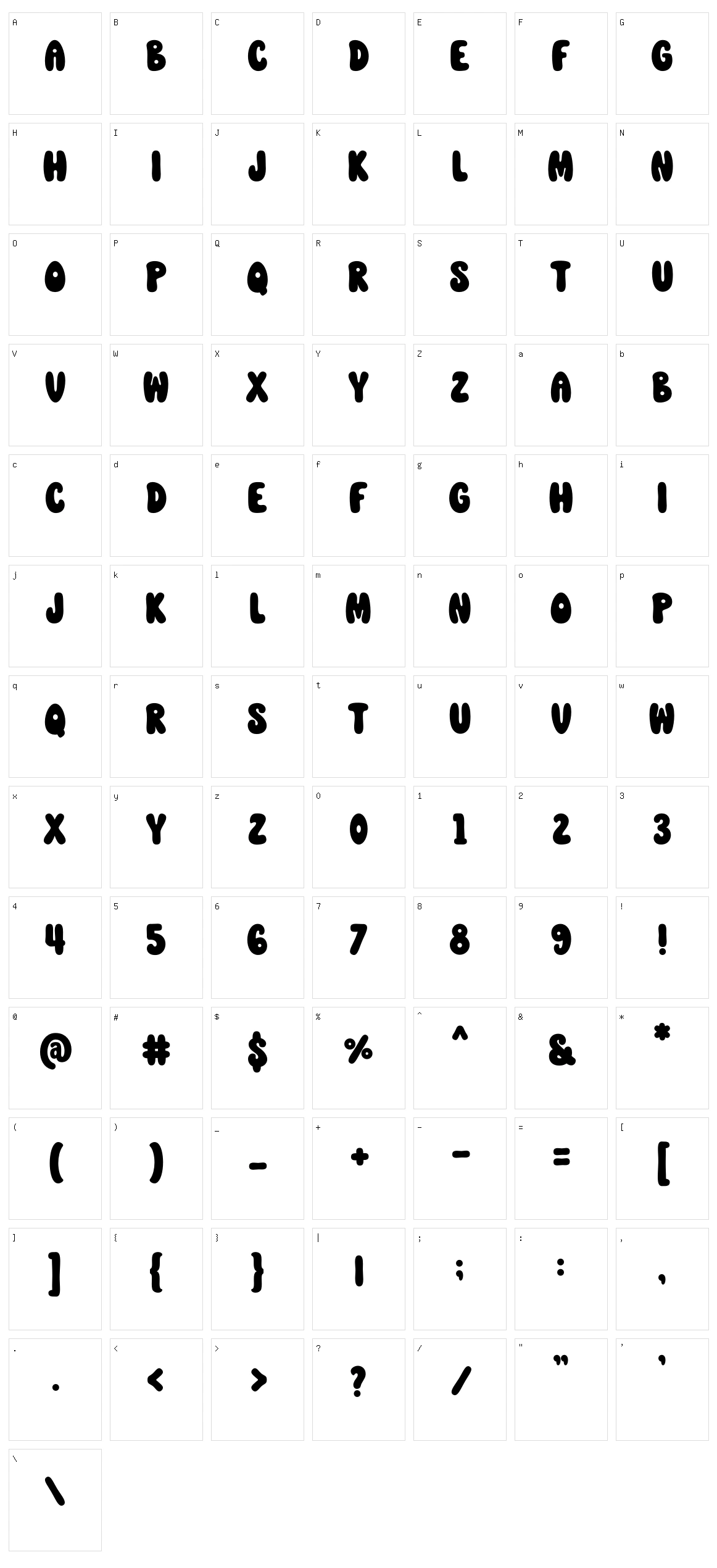
The free font Vintage Avocado is carefully designed by Hoperative, showcasing a thoughtful balance of creativity and usability and falls under the Groovy font style. When you download the ZIP file, it contains only 9.38 KB of font files, making it lightweight and quick to download. Please review the license details below to understand permitted usage and distribution rights. If license information is not available, we recommend using this font for personal projects only or contacting the author directly for commercial usage permissions.